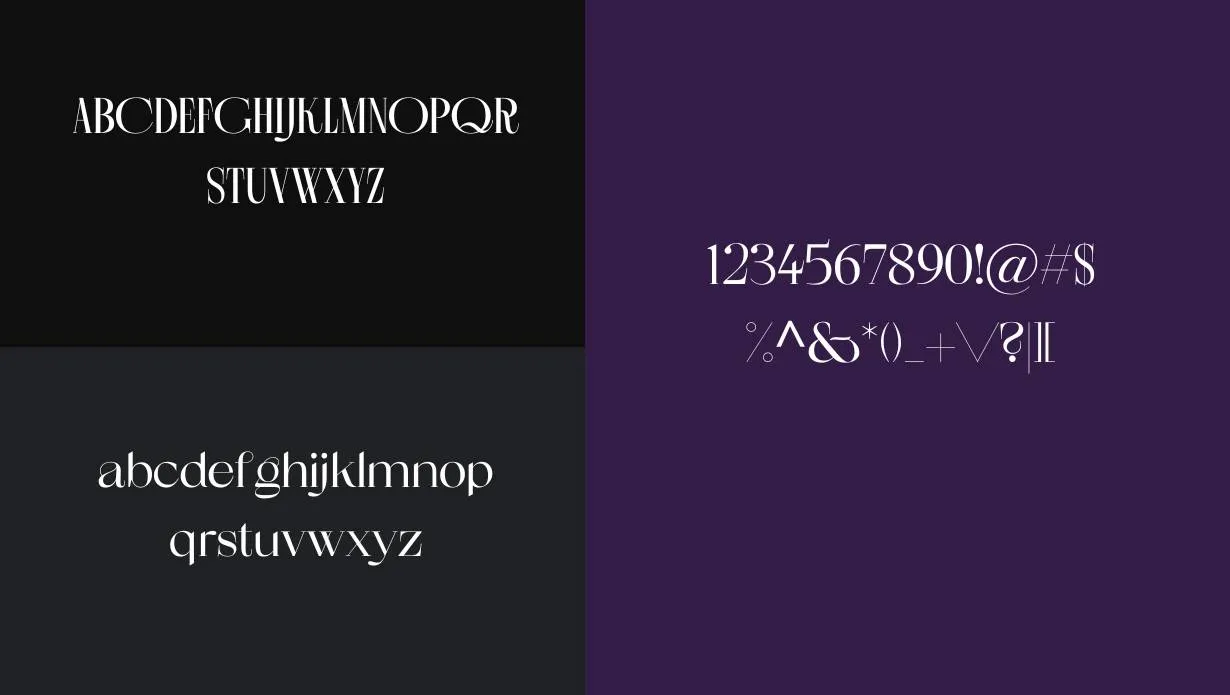
The Zermatt font brings a breath of fresh mountain air to your text. Its clean and crisp design is perfect for minimalist travel brochures, modern outdoor gear labels, or adding a touch of freshness to nature-themed branding.
With a standard width and lightweight, this font gives your words a contemporary and versatile appearance. Picture using the Zermatt font for a hiking trail map, guiding adventurers with clarity and style.